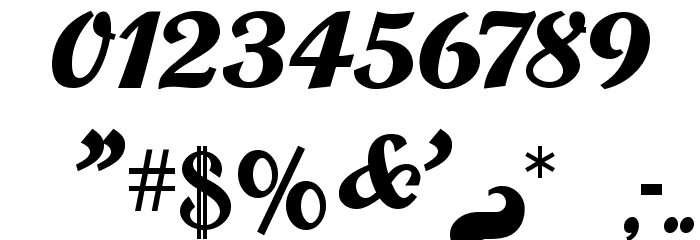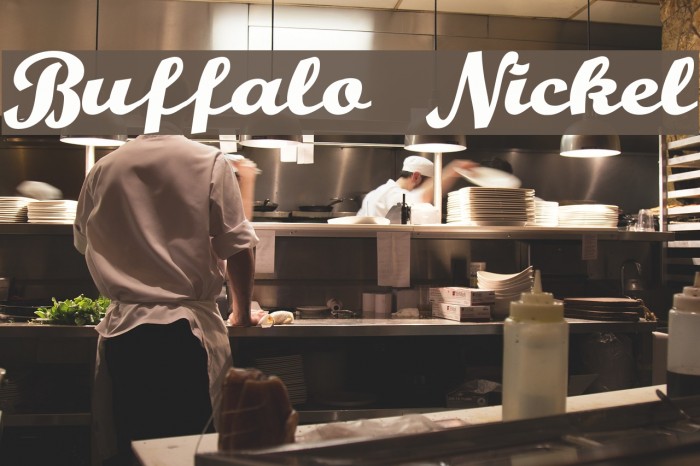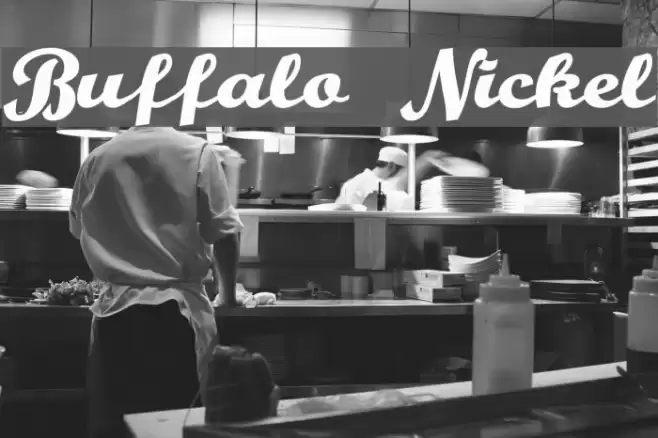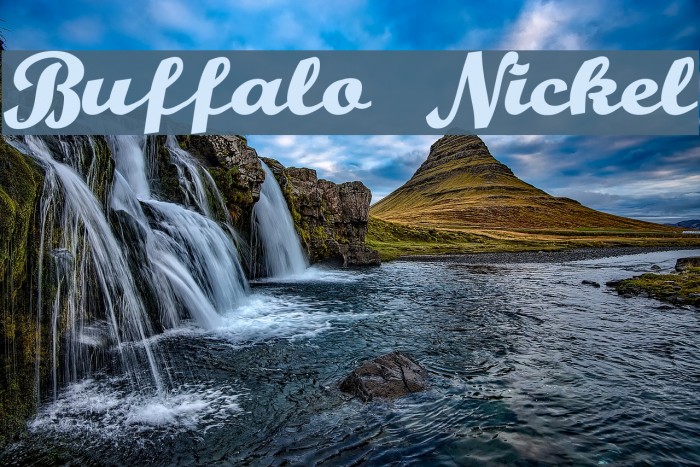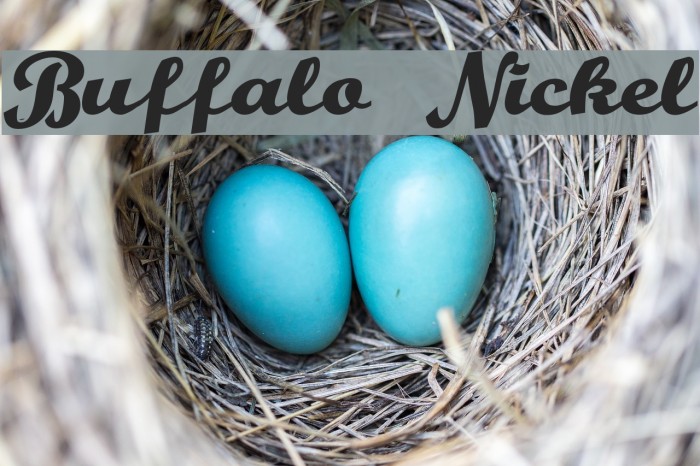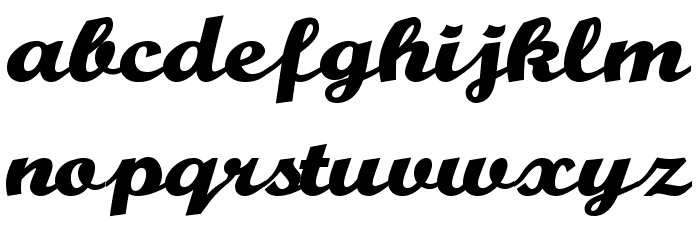
Buffalo Nickel Font
Buffalo Nickel Description
This font features a bold, cursive style with a strong emphasis on fluidity and elegance. The uppercase letters are characterized by their sweeping curves and pronounced flourishes, giving them a dynamic and expressive appearance. The lowercase letters maintain a consistent flow, with smooth connections between characters, enhancing readability while preserving the decorative nature. Numbers are bold and slightly slanted, matching the overall style. Special characters are designed to complement the letters, maintaining the same bold and cursive aesthetic. This font is ideal for projects that require a touch of sophistication and flair.
| Use Case | Headlines, Logos, Invitations |
| Proposed Projects | Ideal for wedding invitations, elegant branding, and decorative headlines. |